The holiday season is the perfect time to add a touch of magic to your work. I’ve curated 24 spectacular fonts that bring festive cheer to any layout. These assets are essential for creating professional-grade holiday graphics and cards.
1. Candy Christmas: Sweeten Your Holiday Designs With This Playful Duo
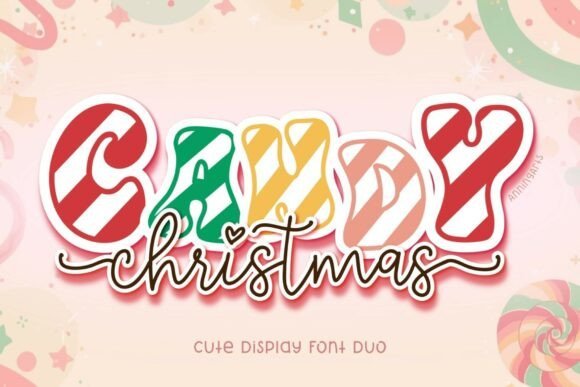
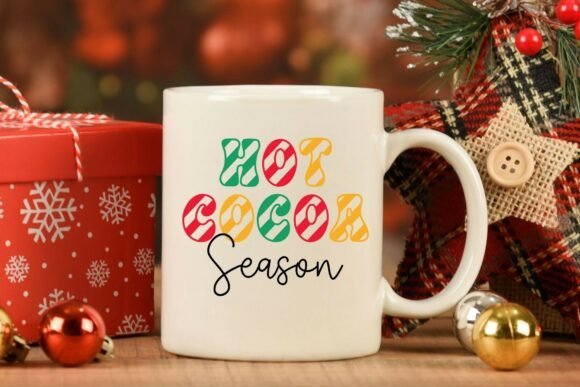
I am absolutely obsessed with how Candy Christmas brings that nostalgic holiday sugar rush straight to the screen. This christmas decorative font duo feels like a warm mug of cocoa, blending those chunky, candy-striped display letters with a graceful, flowing script that ties everything together perfectly. It captures that specific whimsical energy of a festive morning, making every word look like it was hand-crafted by elves in a high-end candy shop.
I love recommending this for christmas cards, festive mugs, seasonal merchandise, and holiday party invitations because it offers such a balanced aesthetic. The letters are bold enough to grab attention while the handwritten elements keep things personal and cozy. Since it is PUA-encoded, you get smooth curves and playful swashes that make your typography look custom without the extra effort. It is a fantastic choice if you want your holiday designs to feel both sweet and professional.
2. Christmas Plaid: Stunning Plaid Textures For Unique Christmas Cards And Decor
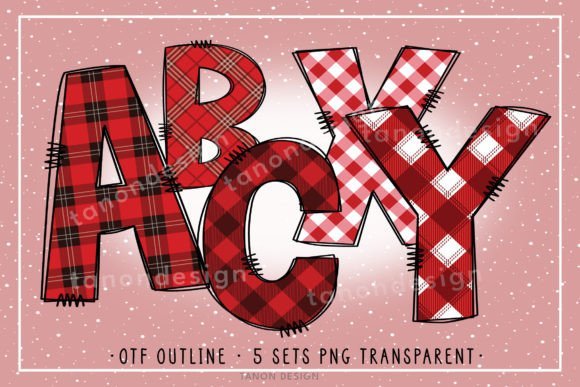
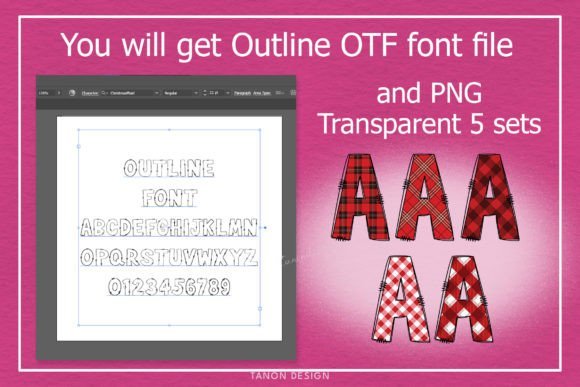
Looking at Christmas Plaid, I immediately feel that rustic, cabin-in-the-woods vibe that makes the holidays so cozy. This christmas decorative font stands out because it isn’t just a single style; it comes with five different red plaid patterns that look like they were plucked right off a flannel shirt. I love how the hand-drawn outlines and stitched details give it a “patched-on” look, making it feel more like a craft project than a digital file. It is the kind of typeface that adds instant texture and warmth to any winter layout.
I highly recommend using this for holiday apparel, sublimation crafts, cozy home decor, and festive greeting cards because it has such a strong visual presence. One huge plus for me is the versatility—you get the vibrant color versions for digital work in Photoshop or Illustrator, but there is also a clean outline OTF file. This black version is a lifesaver for vinyl cutting or laser engraving projects in Cricut Design Space. Having both the high-energy plaid and a functional cutting file makes it an incredibly practical tool for the busy holiday season.
3. Snowith Christmas: Bring The Cold Weather Charm To Your Seasonal Graphics
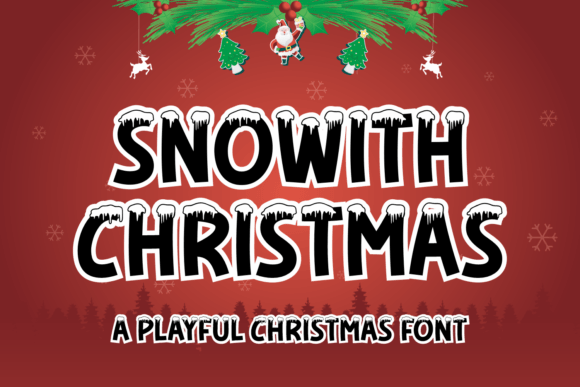
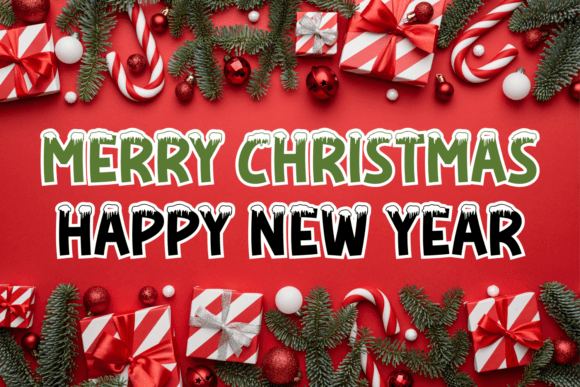
I absolutely love how Snowith Christmas instantly turns any layout into a winter wonderland with its charming snow-capped letters. This winter seasonal font feels incredibly playful and bold, making it look as though each character has been freshly dusted by a heavy December snowfall. The thick, rounded stems provide a sturdy base that ensures readability, while the delicate icicle-like details on top add that essential touch of holiday magic that catches the eye immediately.
I can see this working beautifully for festive social media graphics, winter sale banners, personalized gift tags, and holiday-themed posters because it carries such a cheerful and cold-weather vibe. The balanced design makes it easy to layer over busy backgrounds without losing its impact. Since it is a display-heavy typeface, it is perfect for when you need a header that feels both cozy and exciting. It really is a go-to choice for anyone wanting to bring a frosty, fun energy to their seasonal creative projects.
4. Reindeer Christmas Monogram: Unique And Personalized Christmas Monograms For Decor
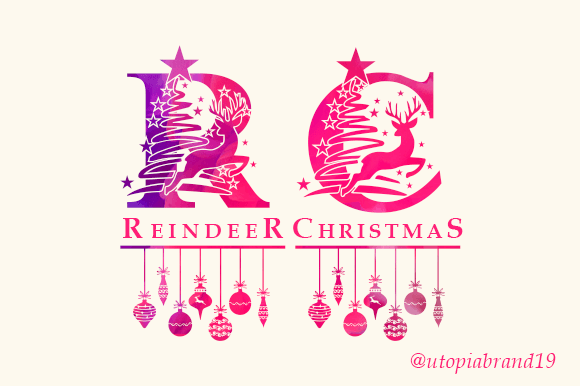
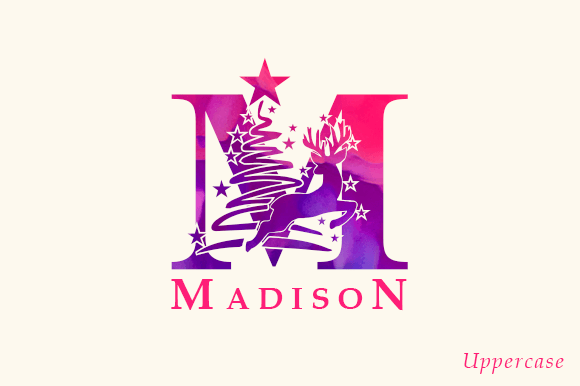
This christmas decorative font, Reindeer Christmas Monogram, absolutely charms me with its blend of elegant serif letters and playful holiday silhouettes. The uppercase characters are beautifully sculpted, and I find the creative integration of a leaping reindeer, a star-topped tree, and twinkling stars within the letterform to be pure magic. The vibrant, watercolor-like gradient from purple to pink gives it a fresh, energetic feel that I adore. Each letter really tells a miniature Christmas story all by itself.
It’s just perfect for monogrammed gifts, personalized ornaments, holiday branding, and eye-catching social media posts because it commands attention without being too heavy. I particularly appreciate how easily it adds sophisticated Christmas cheer to any design, from elegant stationery to fun greeting cards. The playful spirit it brings makes it one of my top choices for creating designs that feel both personal and professionally cheerful. It’s a truly unique way to spread the joy of the season.
5. Snow Christmas: Bold Snowy Letters Paired With Elegant Holiday Script
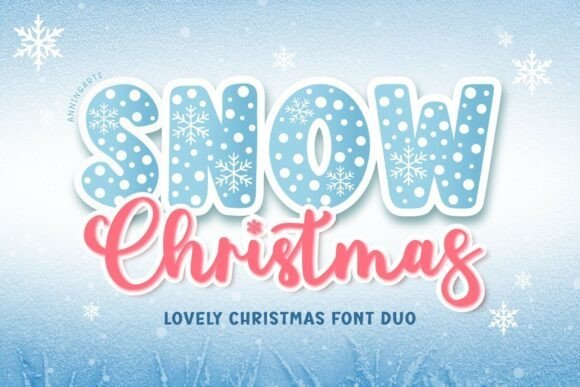
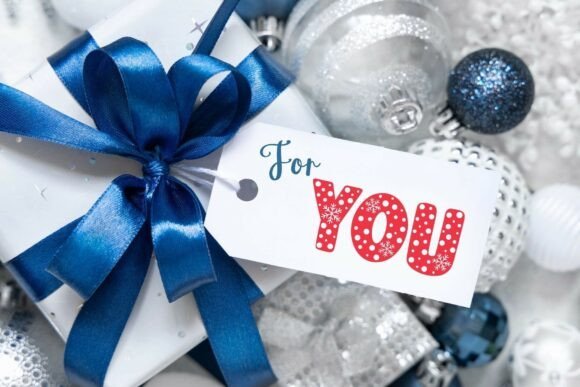
I am absolutely captivated by how Snow Christmas balances playful energy with elegant brushwork. This christmas decorative font duo is a visual treat, featuring chunky, bubble-style display letters that look like they have been sprinkled with fresh snow and tiny, delicate flakes. I love how the accompanying script flows so naturally, offering a hand-drawn look that makes any design feel more personal and warm. It is the kind of pairing that takes the guesswork out of typography because the two styles already complement each other perfectly.
Final Thoughts
The beauty of Christmas design lies in the small, thoughtful details. I am confident these fonts will add that necessary touch of magic to your work. Don’t be afraid to mix and match these styles for a completely custom and artistic feel.